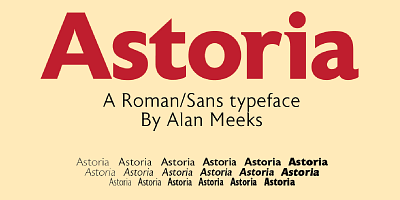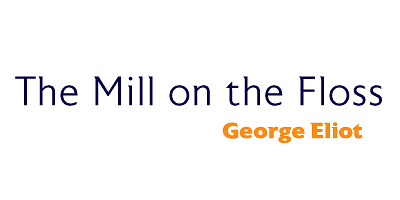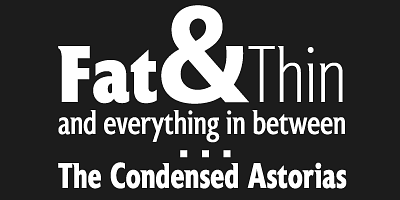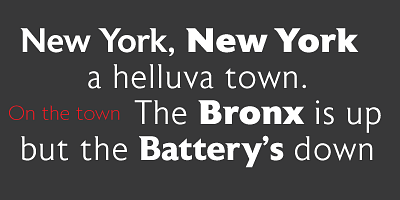
Based heavily on Gill especially in the mid weights, Astoria has a subtle top left serif which makes it not quite a Roman and not quite a Sans. Designed specificaly as a text face it still works very well as a headline font.
Alan Meeks